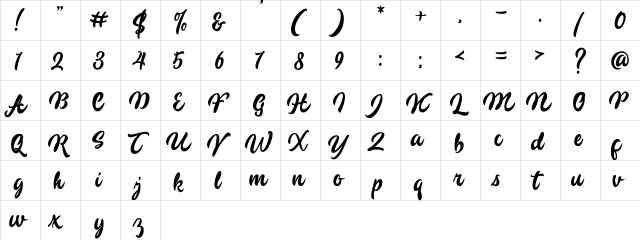
Tristan Script Regular
Design Context for Tristan Script Typeface
Tristan Script flows with the natural rhythm of handwritten lettering, making it ideal for designs that call for warmth and personal expression.
Font Pairing: Combine Tristan Script with a simple geometric sans for maximum contrast — the tension between flowing curves and clean structure is a classic typographic pairing.
Pro Tip: Pair Tristan Script with a clean sans-serif for supporting text. The contrast between fluid script and geometric structure creates an elegant typographic hierarchy.